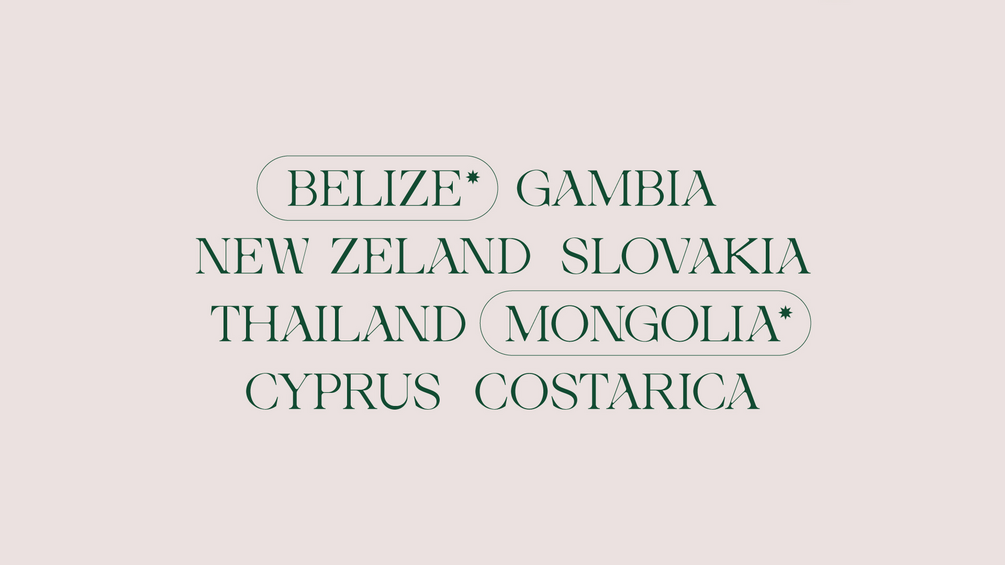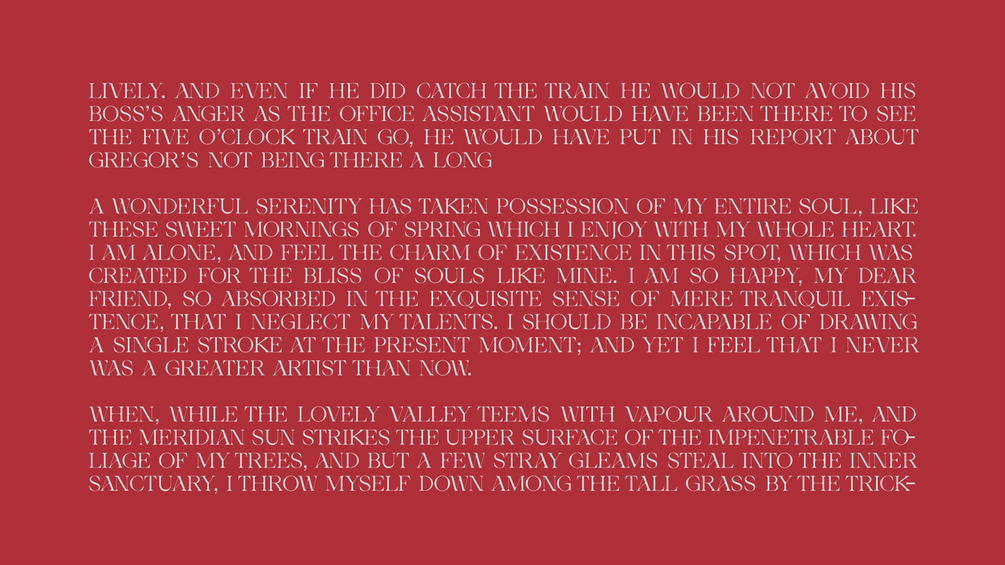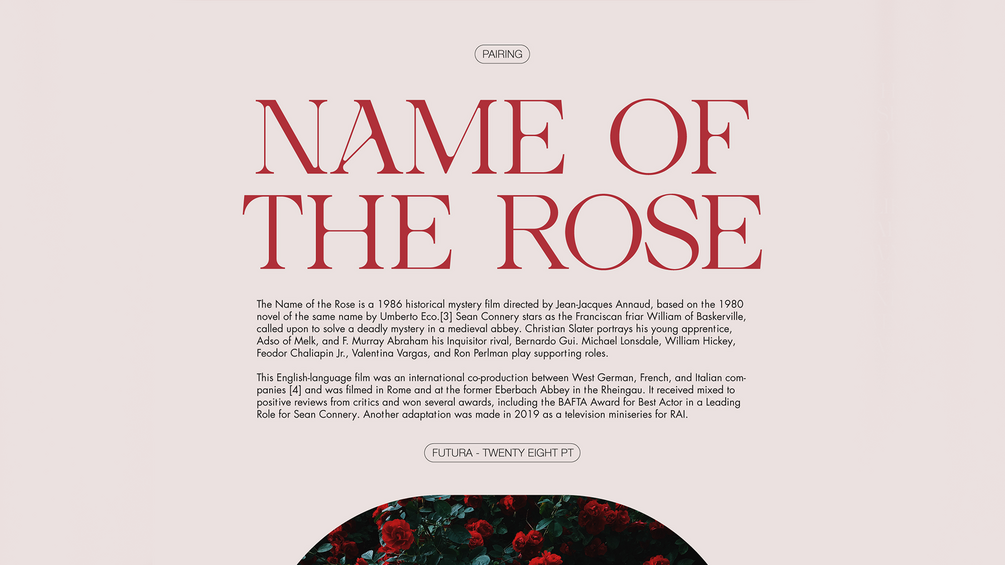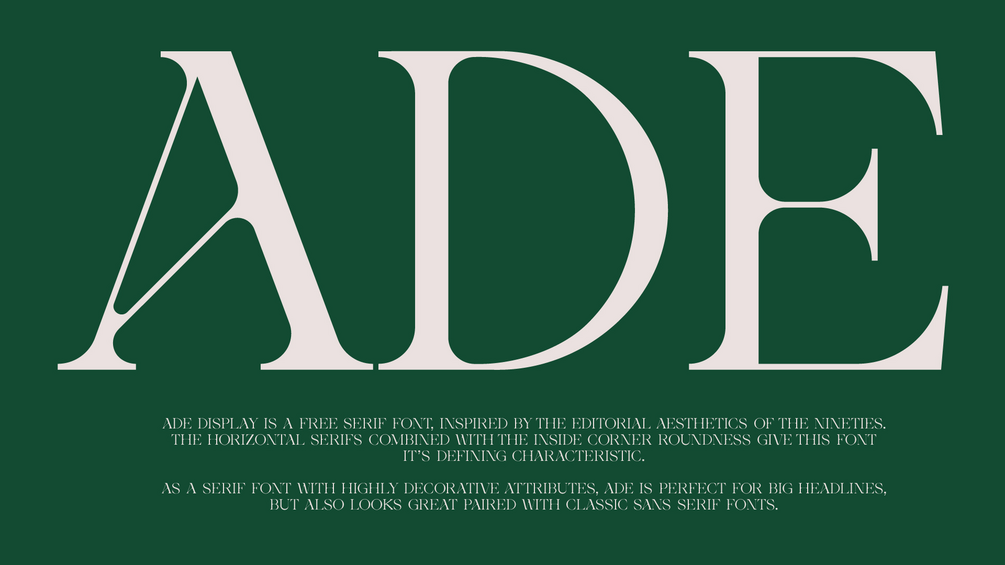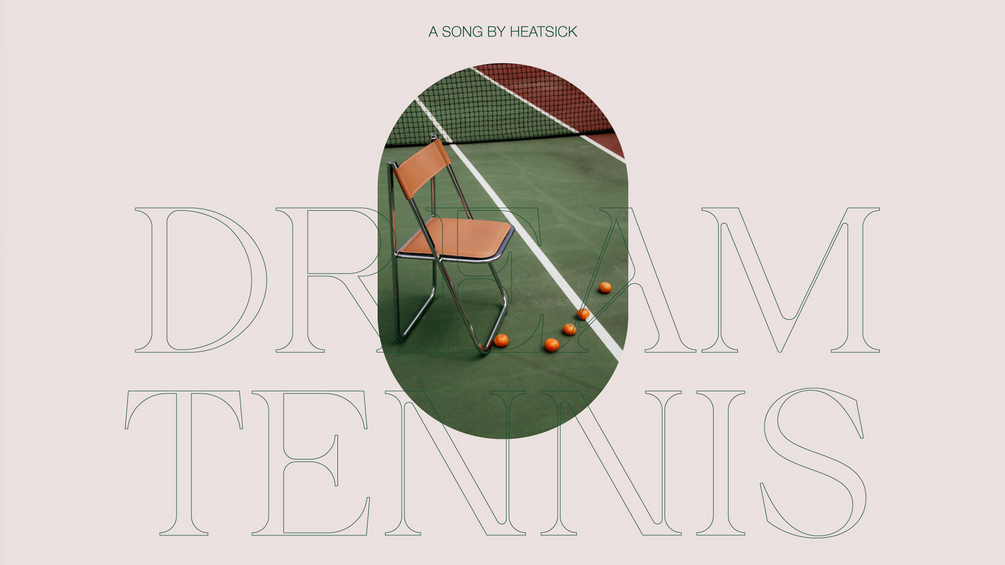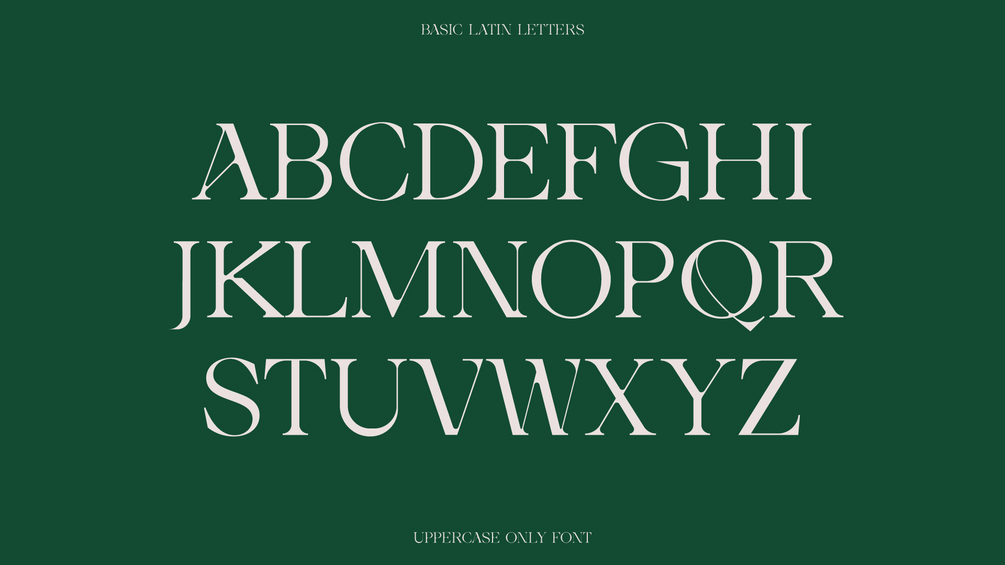
Ade Display - Free Font
Ade Display is a free serif font inspired by the aesthetics of the nineties. The horizontal serifs combined with the inside corner roundness give this font it's defining characteristic. It's free, so feel free to use the tag #adetype in your future projects.